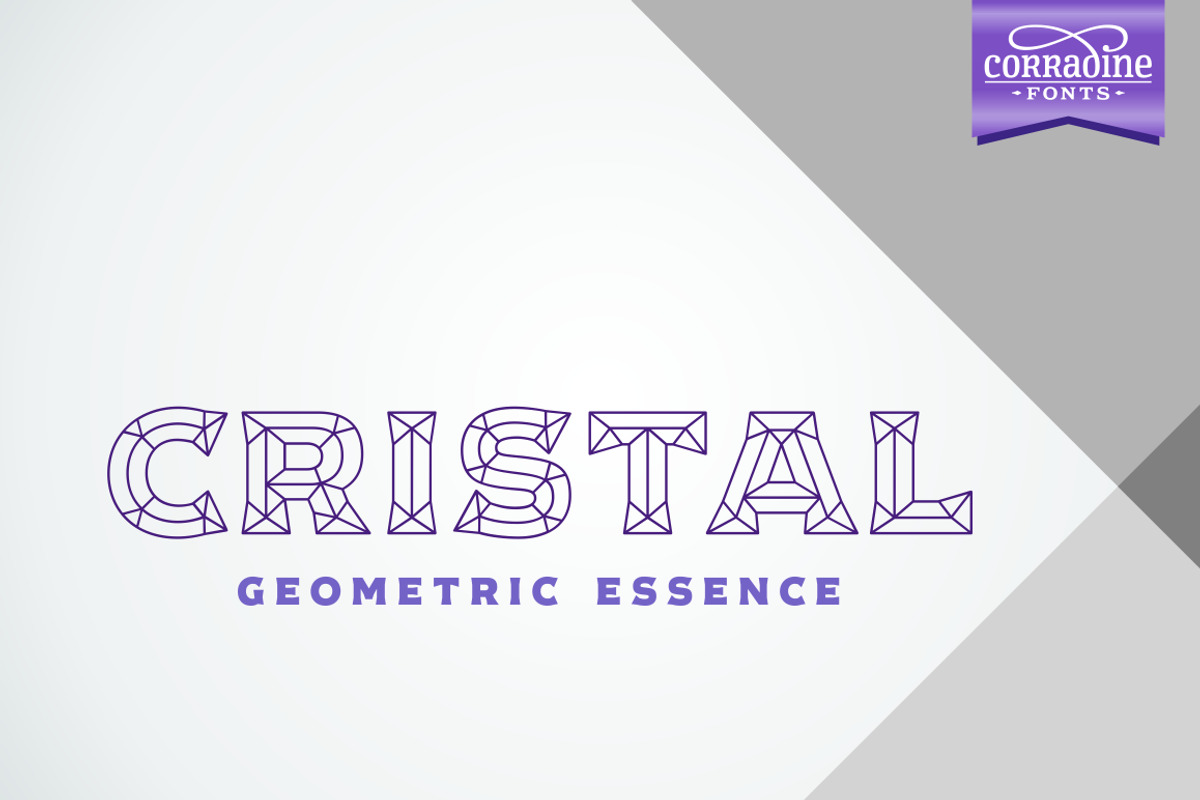
Cristal Font Family is perfect for luxury brand identities, premium jewelry packaging, high-end fashion magazines, elegant wedding invitations, crystal clear business communications, sophisticated logo design, upscale beauty product labels, refined corporate materials, pristine website typography, exclusive event promotions, crystalline art projects, and luminous design applications.
Cristal Font Family is exciting because it embodies pristine clarity and brilliant elegance through its crystal-clear letterforms that reflect light and sophistication like perfectly cut gemstones, creating typography that sparkles with refined beauty and luminous appeal. This exceptional typeface features precise geometric proportions with crystalline clarity that ensures perfect readability while maintaining the brilliant sophistication of fine crystal craftsmanship. The font family's luminous character transforms every application into a showcase of clarity, precision, and elegant transparency that captivates discerning audiences.
Cristal Font Family includes comprehensive font families: Regular Crystal Style, Bold Brilliant Weight, Light Transparent Touch, Medium Clear Balance, Italic Flowing Clarity, Condensed Precise Format, Extended Luminous Width, Ultra Light Glass, Black Diamond Style, and Special Crystal Symbols, providing complete solutions for luxury typography needs and sophisticated brand communications that demand crystalline clarity and elegant precision.
This luminous typography solution transforms ordinary communications into brilliant crystal experiences through its pristine aesthetic and sophisticated clarity design principles. Cristal Font Family Free Download enables designers and luxury brands to access premium crystal typography that instantly adds brilliance, clarity, and sophisticated luminosity to any creative project. The font family's meticulously crafted proportions ensure perfect transparency while maintaining exceptional elegance and distinctive crystal character.
Luxury jewelry brands, high-end fashion houses, and premium businesses trust Cristal Font Family for its ability to communicate clarity, sophistication, and brilliant quality to discerning audiences who appreciate crystalline perfection and luxury brand experiences. The typeface family's precise construction performs beautifully across various applications, from intimate luxury communications to large-scale premium branding campaigns. Its extensive character support includes multilingual capabilities and crystal design elements that enhance sophisticated luxury brand presentations.
The design philosophy behind Cristal Font Family emphasizes the perfect clarity and brilliant precision that defines the finest crystal craftsmanship, creating typography that embodies transparency, elegance, and luminous beauty. This clarity-focused approach creates a font family that feels genuinely crystalline while maintaining contemporary sophistication across different luxury contexts and brilliant brand expressions.